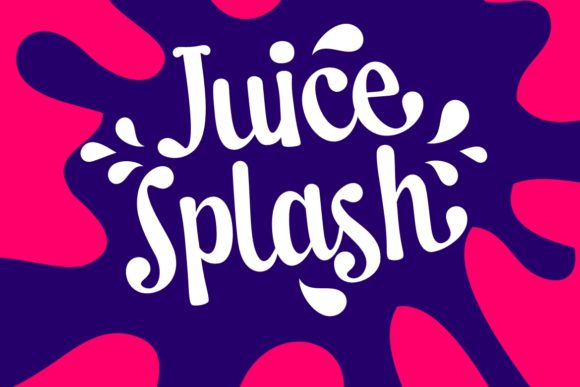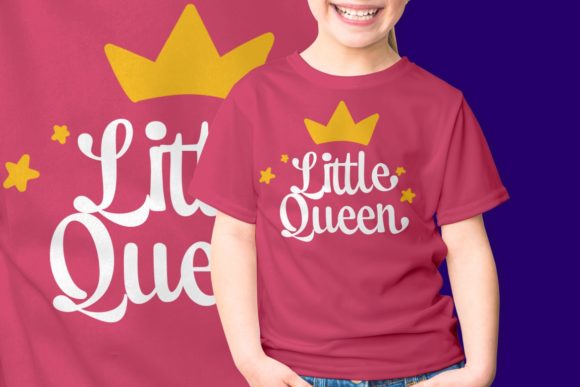
Let's Espresso Font
db-ku.com - Script & Handwritten -- Let’s Espresso is a lovely and flowing handwritten font. It looks lovely on wedding invitations, birthday cards and more. Add it to your most creative ideas and notice how it makes them come alive!